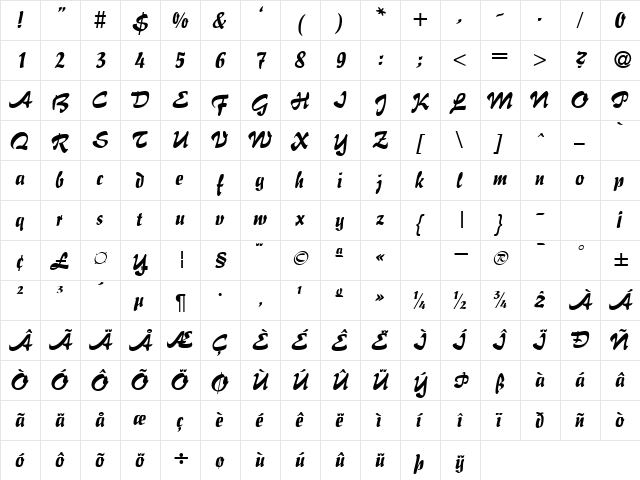
GE Flair Brush Regular
Design Context for GE Flair Brush Typeface
GE Flair Brush brings a calligraphic fluidity to the page — its connecting strokes and expressive curves give it an unmistakably human quality.
Font Pairing: Combine GE Flair Brush with a simple geometric sans for maximum contrast — the tension between flowing curves and clean structure is a classic typographic pairing.
Pro Tip: Pair GE Flair Brush with a clean sans-serif for supporting text. The contrast between fluid script and geometric structure creates an elegant typographic hierarchy.